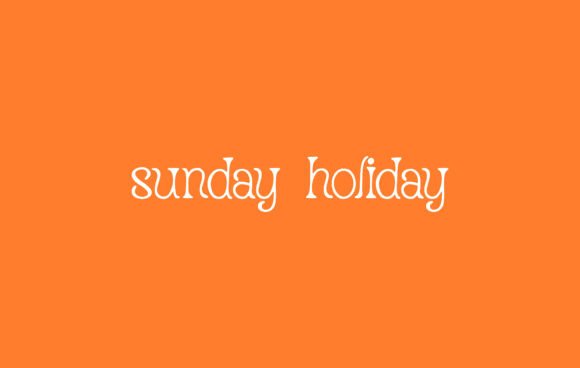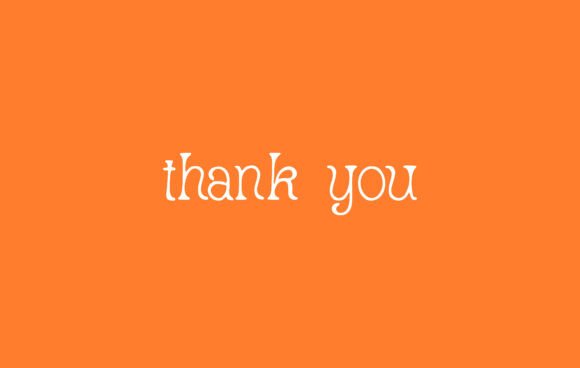
Introduction to Shadow Skate Font
Shadow Skate font is an authentic handwritten font with a romantic touch.
Key Features of Shadow Skate Font
Why Choose Shadow Skate Font?
Shadow Skate Font offers exceptional quality and versatility, making it a valuable addition to your design toolkit. Whether you’re creating for personal projects or commercial use, Shadow Skate Font delivers professional results.